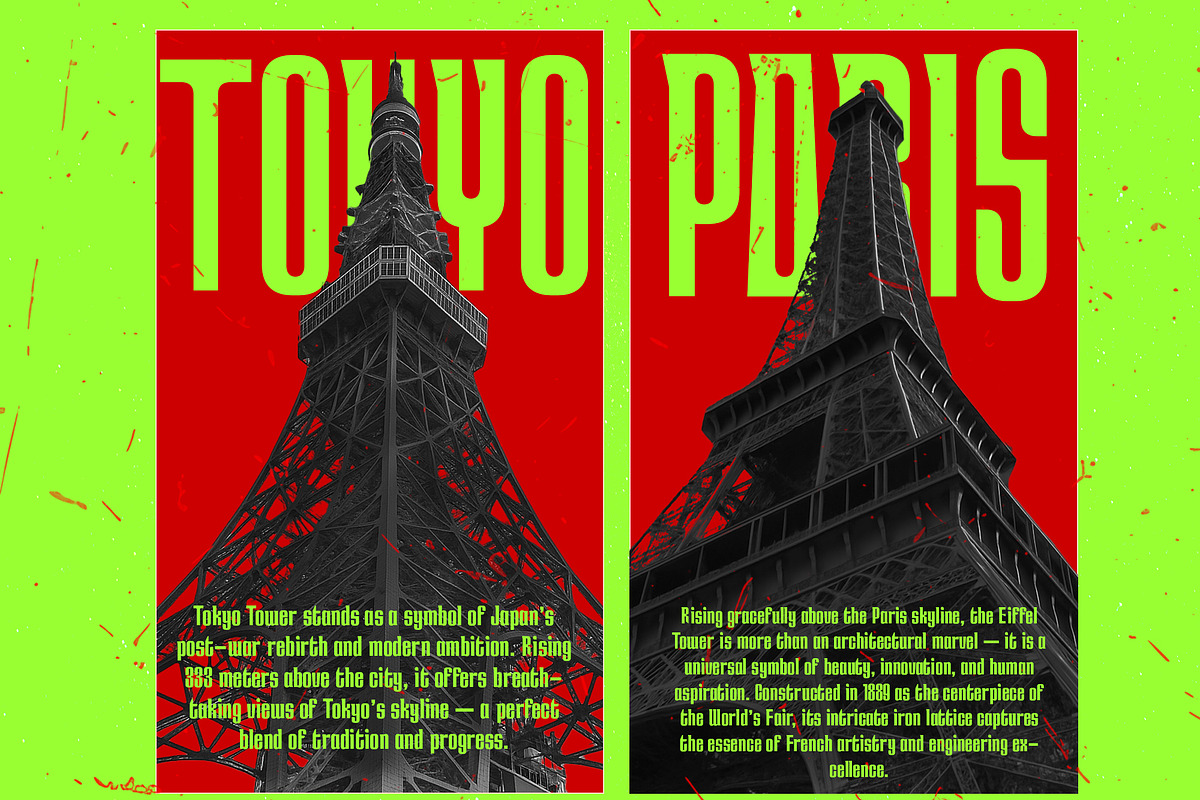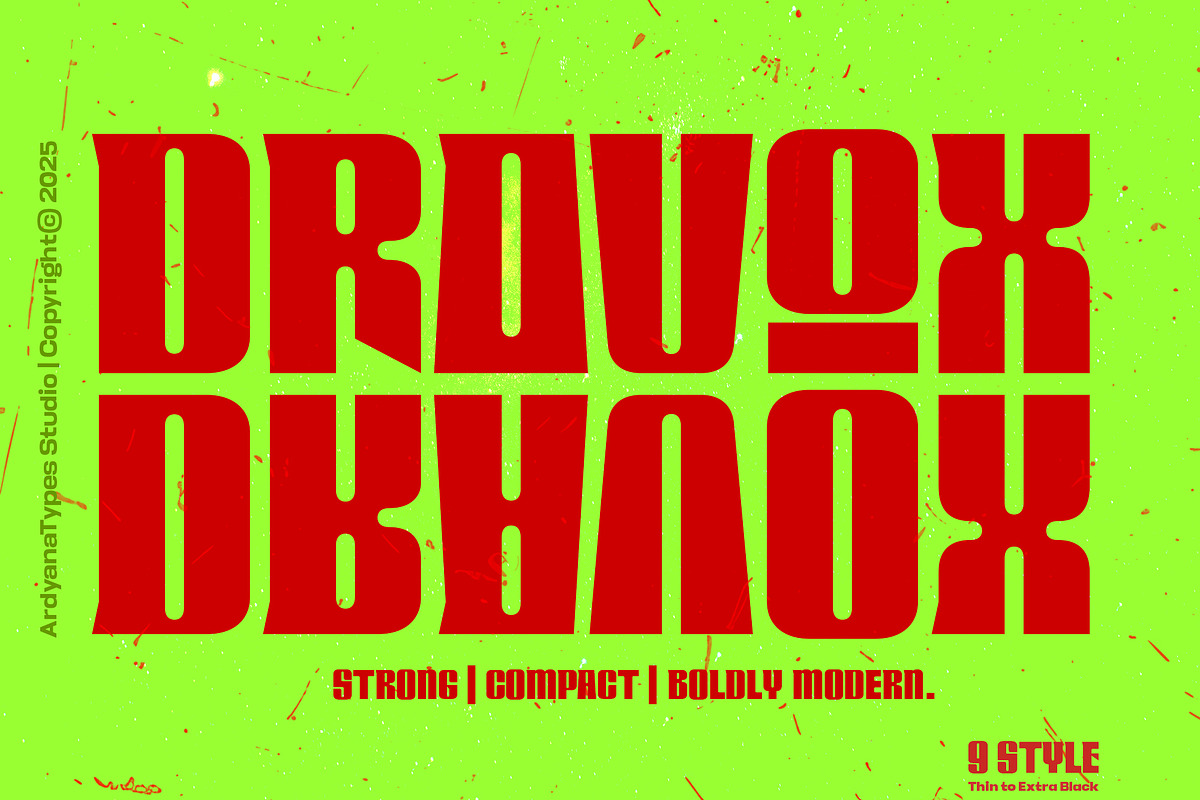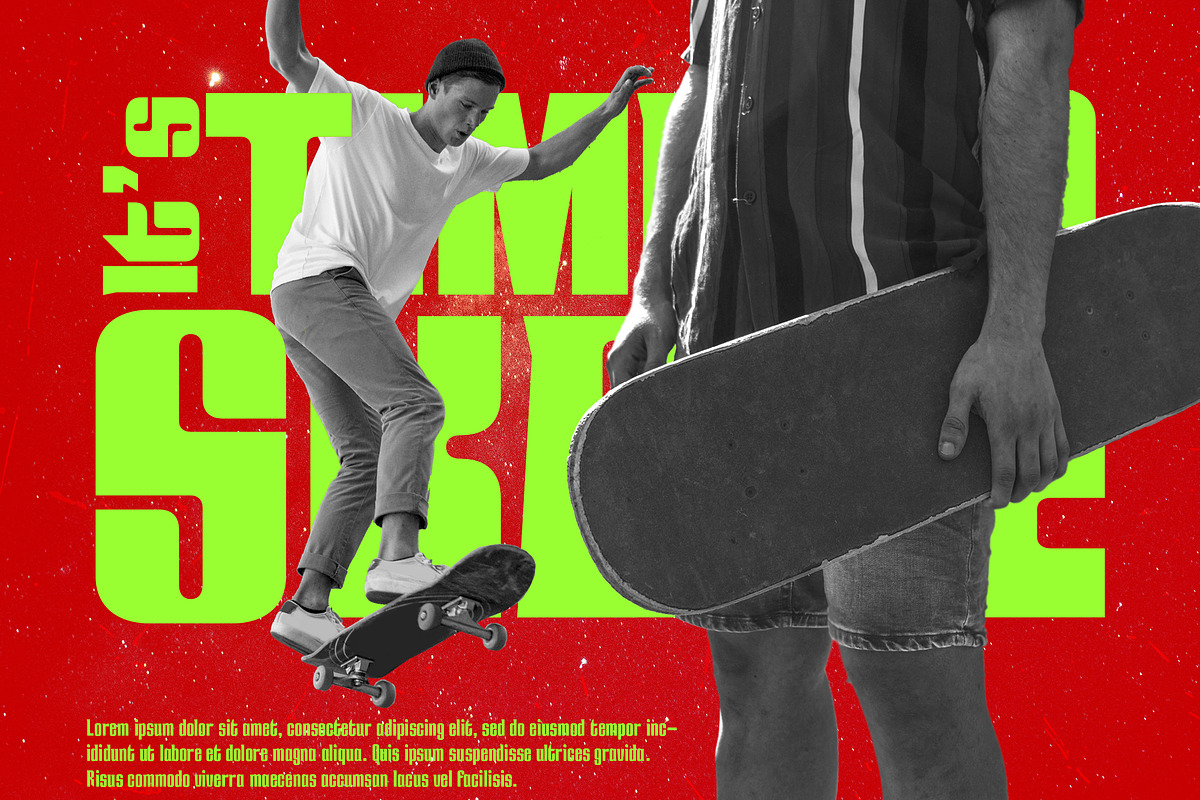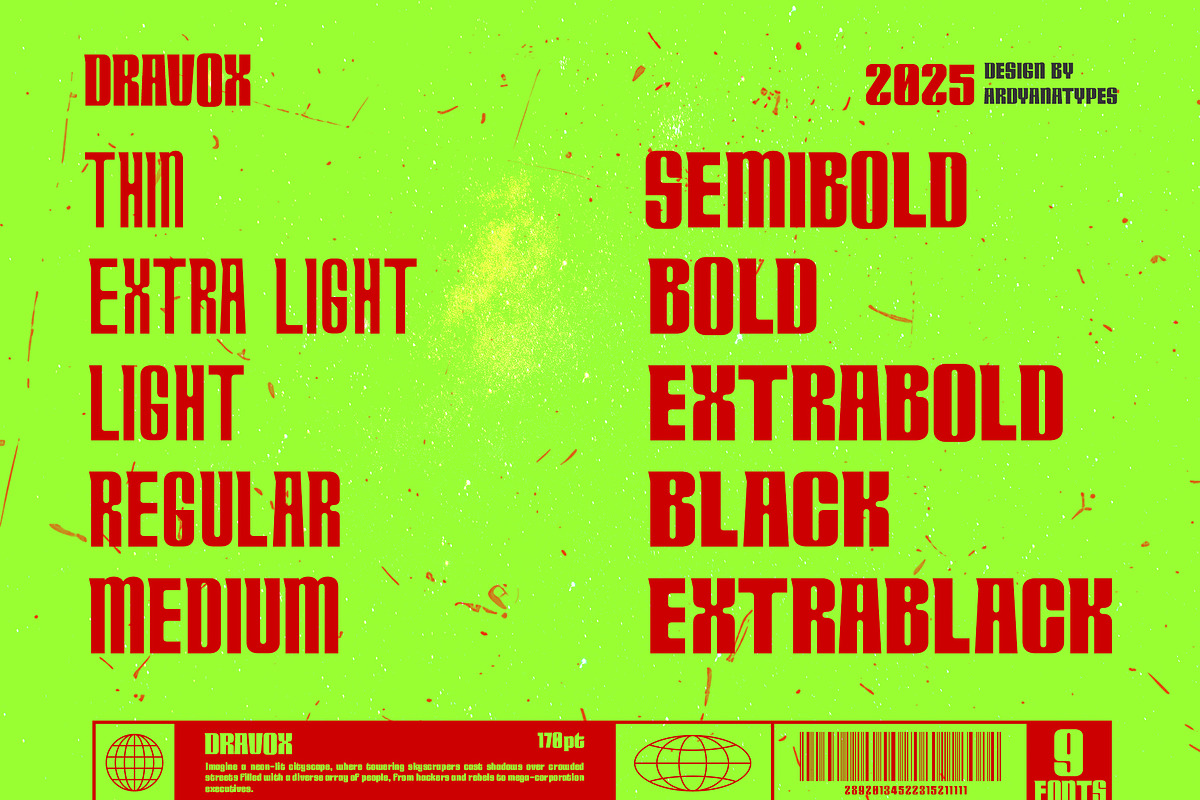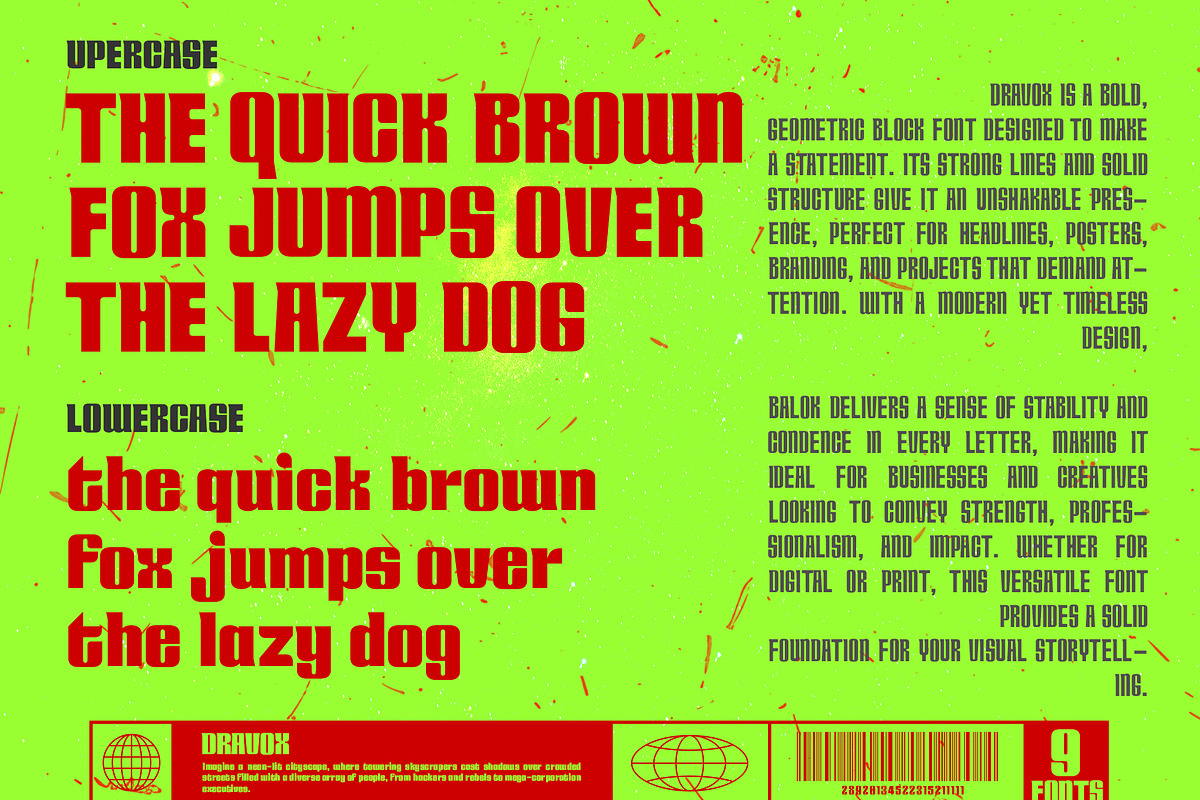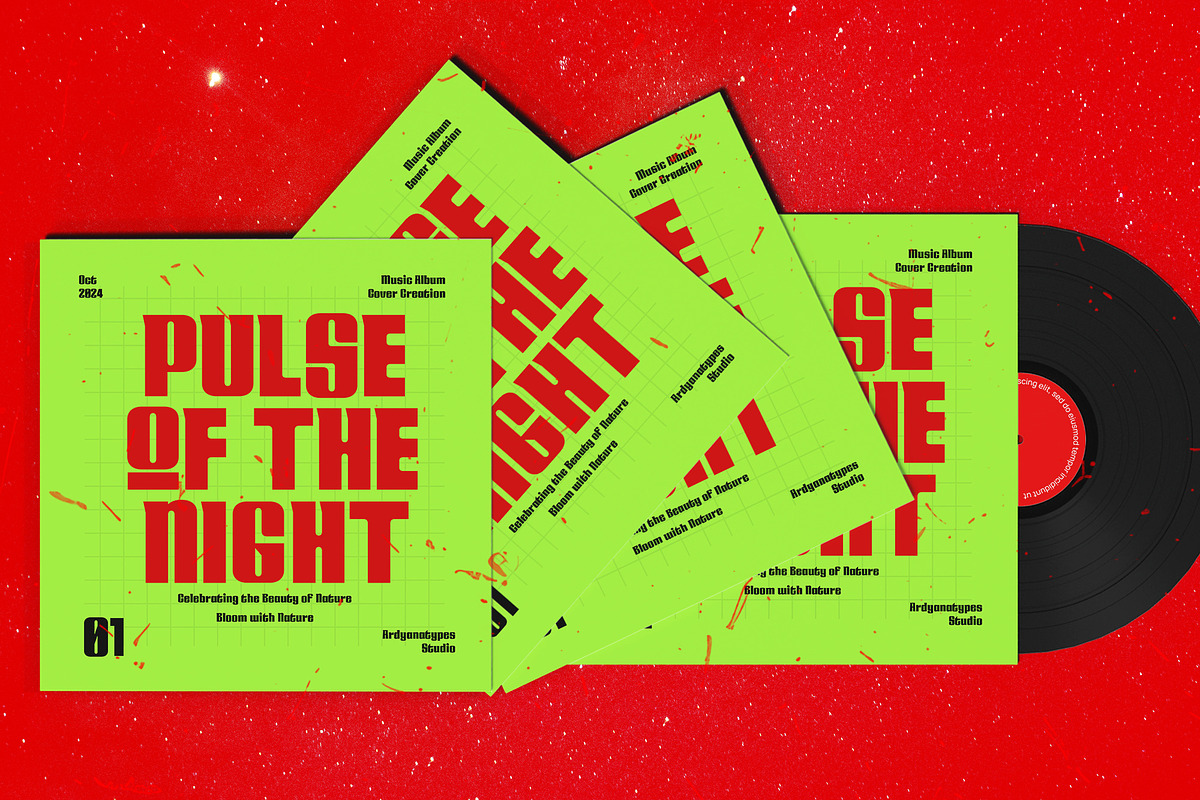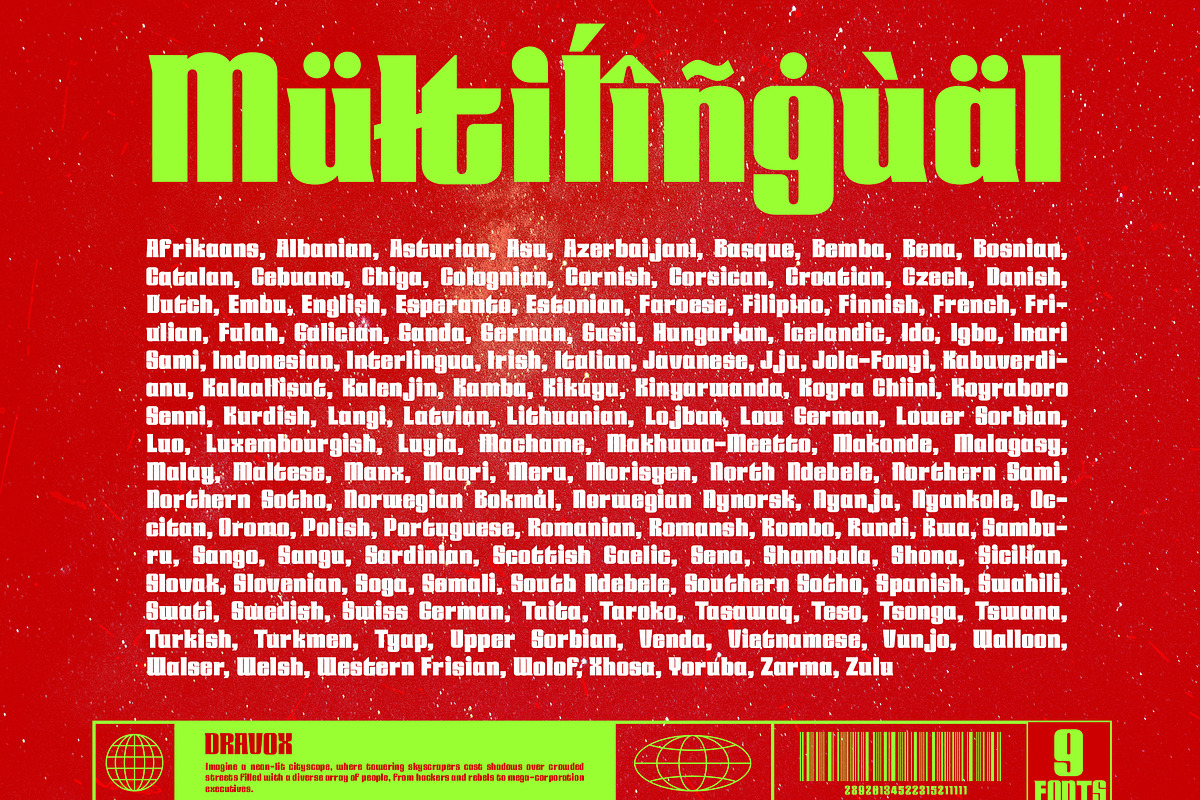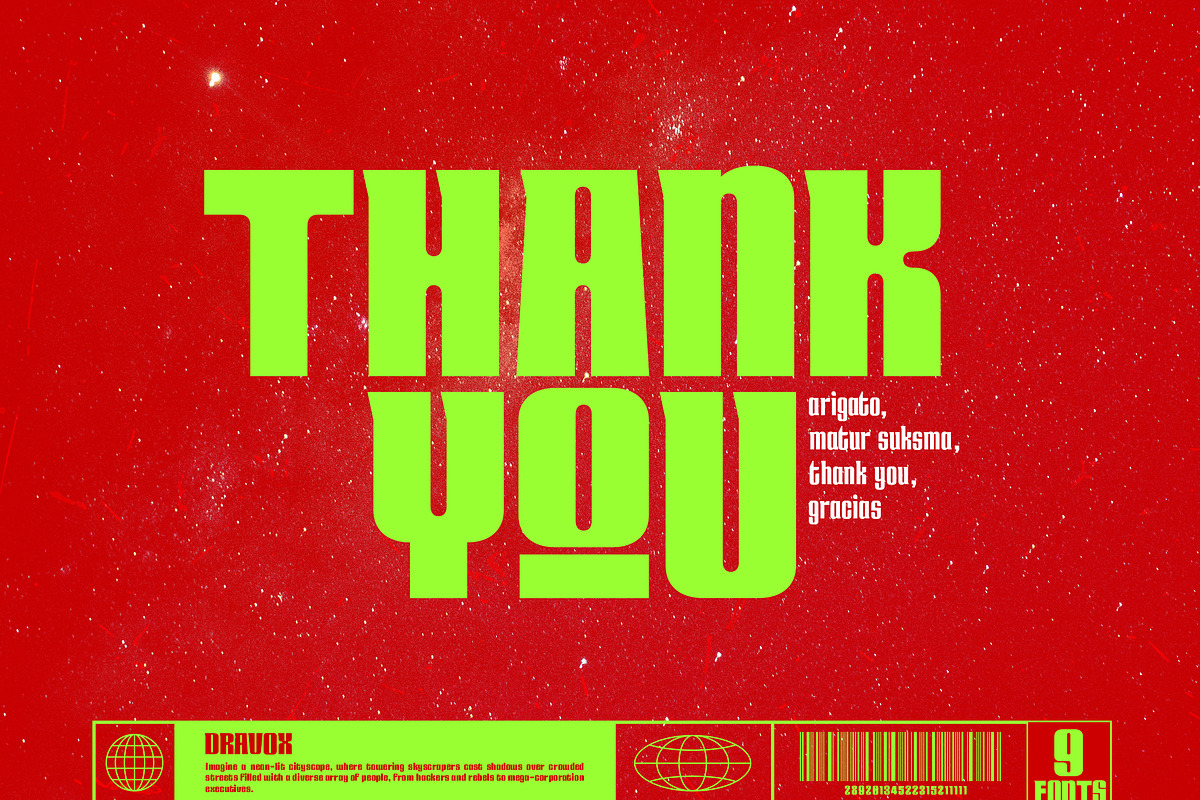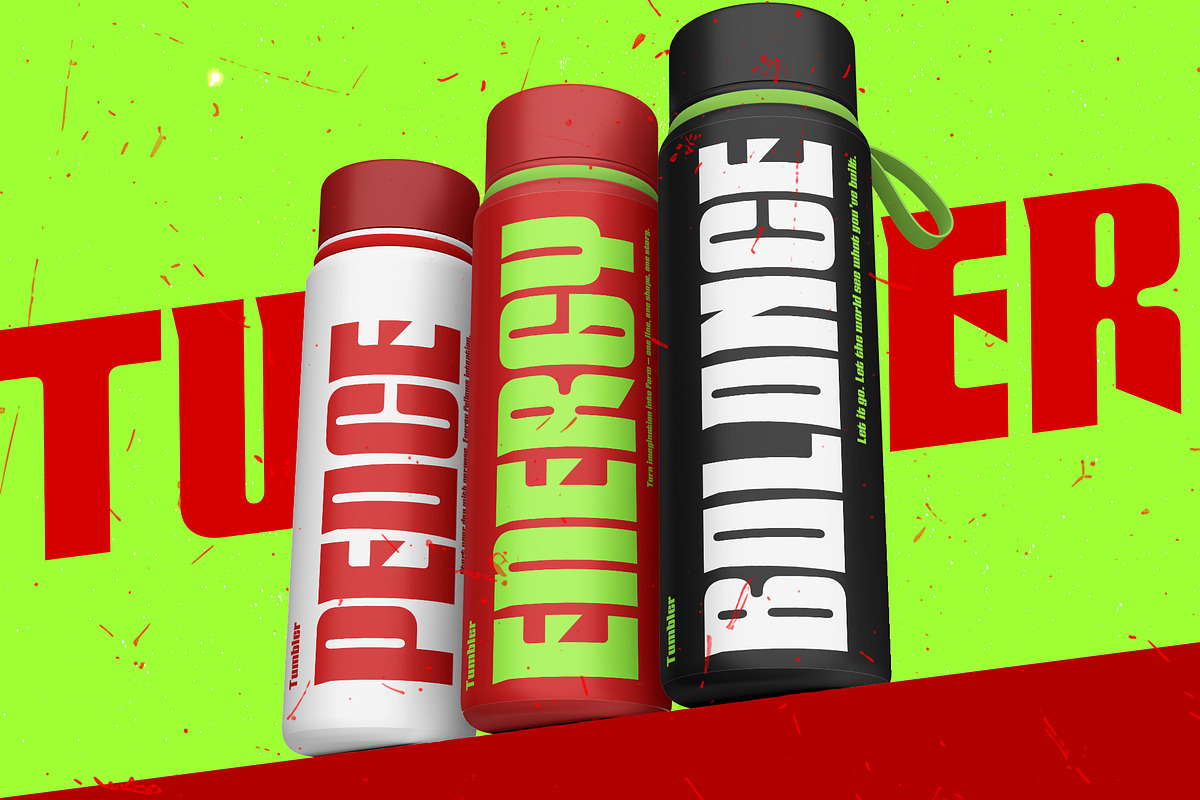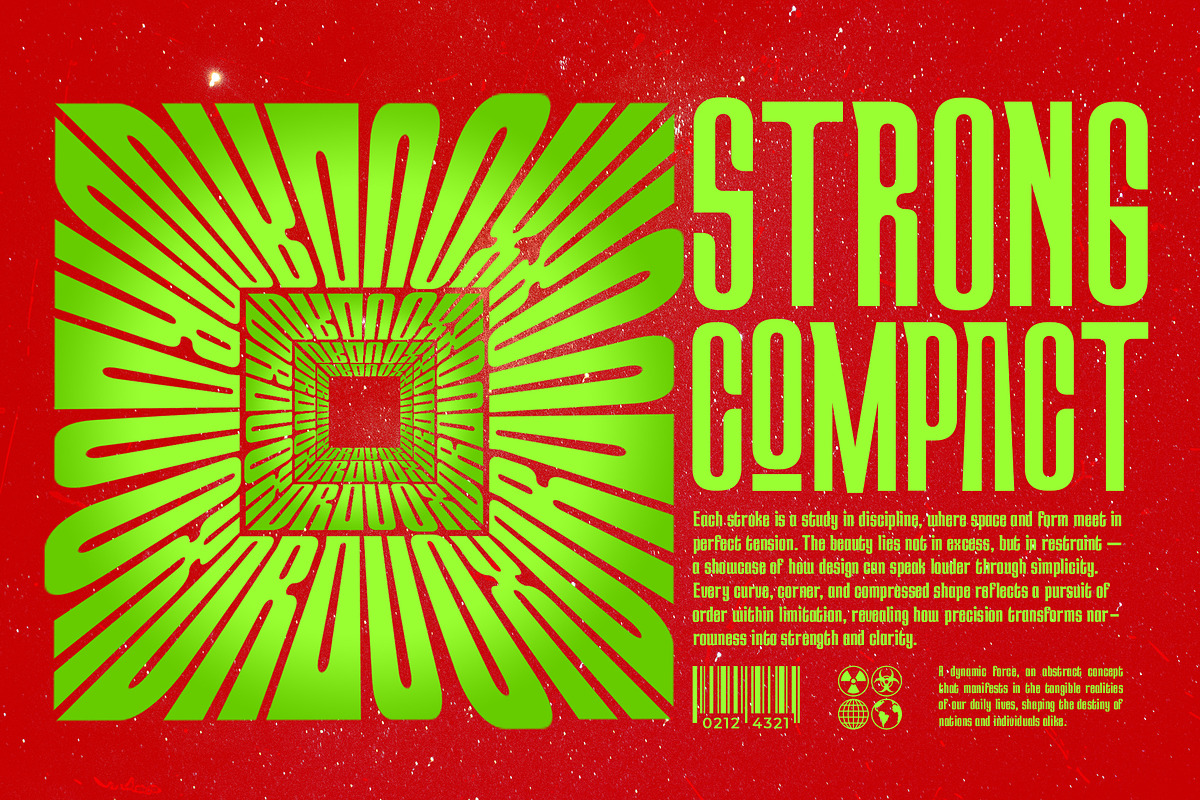
Dravox
Dravox is a modern display typeface that blends geometric precision with sleek futuristic aesthetics. Every curve and edge is crafted with confidence, offering a bold yet refined visual presence. Created for designers who want to express strength and innovation through typography, Dravox works beautifully in logos, posters, product packaging, and high-impact branding projects.
What makes Dravox Typeface stand out is its versatility — it comes in 9 styles, ranging from Thin to Extra Black. This extensive weight range allows designers to build visual hierarchy, contrast, and consistency across multiple applications, all within a single unified font family. From minimalist layouts to striking headlines, Dravox delivers clarity, precision, and visual strength.
Its futuristic tone evokes technology, motion, and progress, making it an ideal choice for brands that want to appear modern, visionary, and bold. The combination of solid geometric structure and subtle contrast gives Dravox a distinctive and professional look suitable for any creative field — from tech startups to sci-fi movie posters and beyond.
Use Dravox to give your design a new dimension of strength and style — a typeface that not only communicates, but defines the identity of your brand.